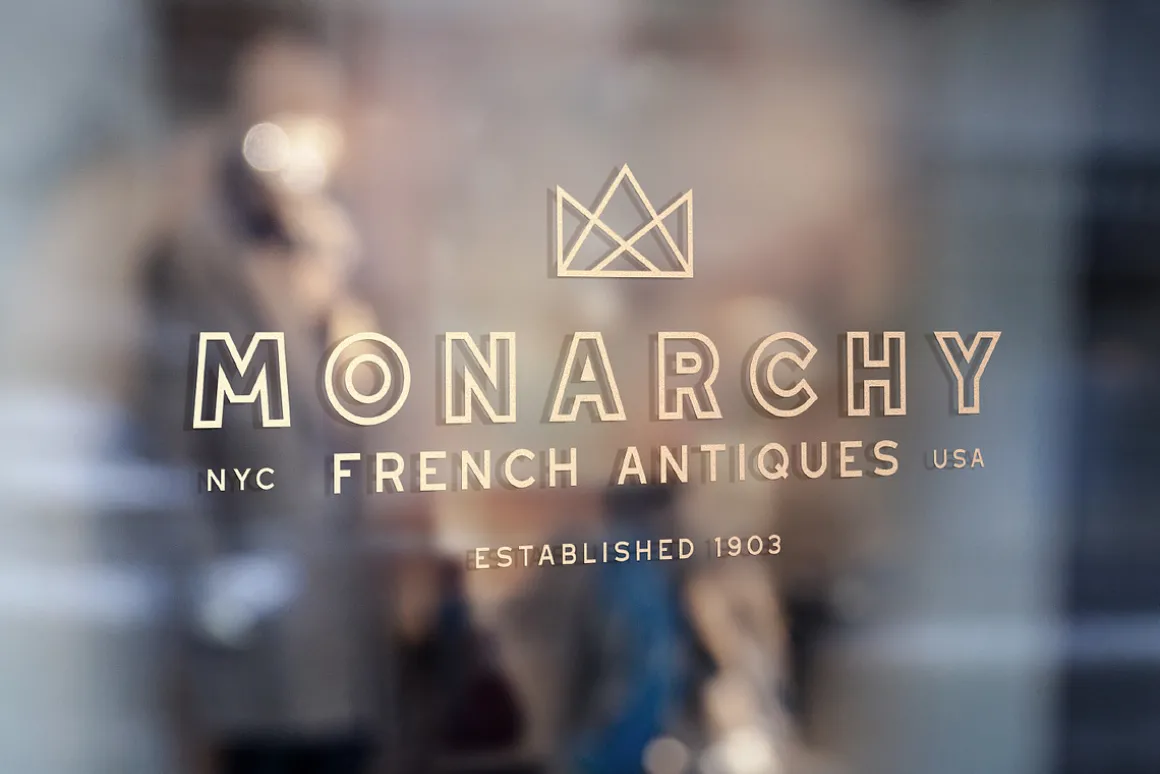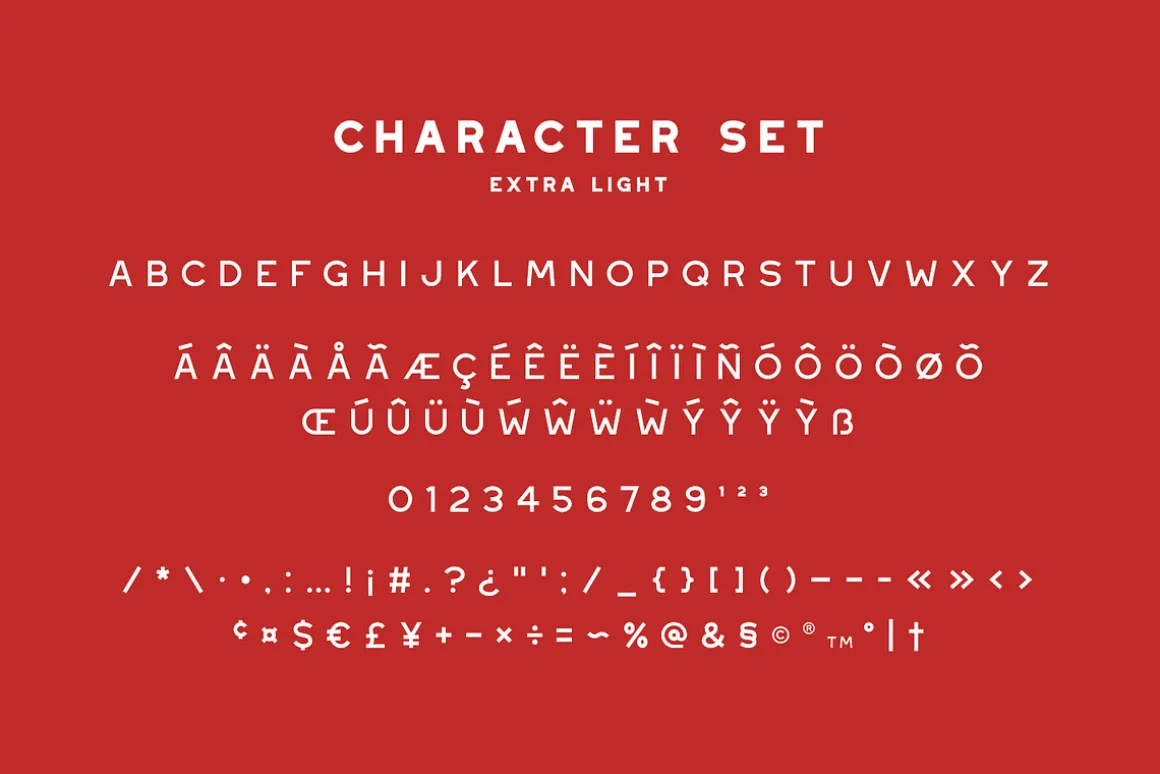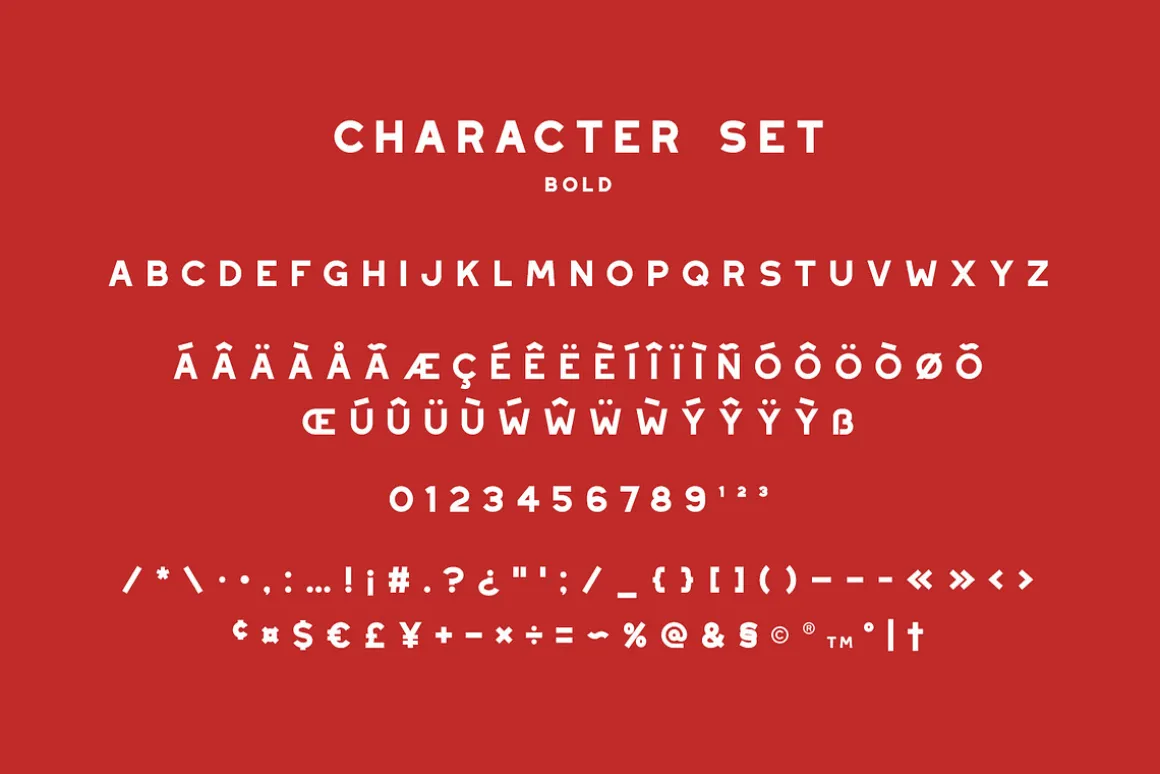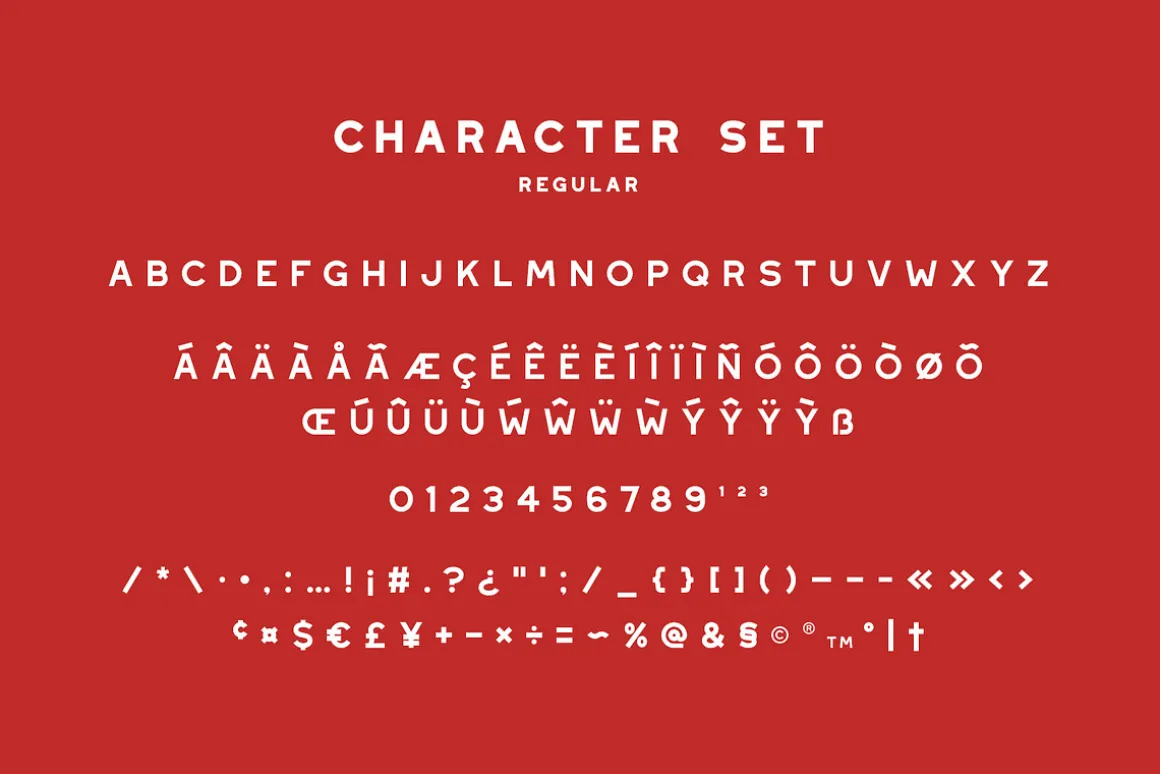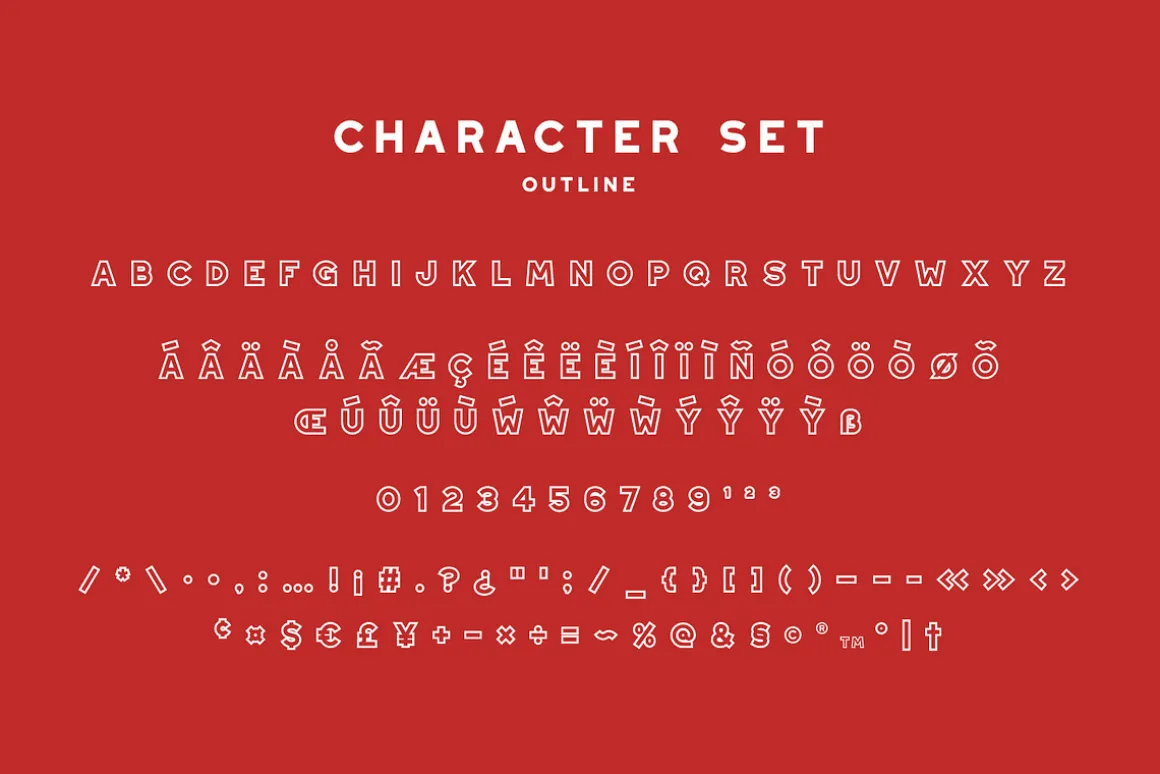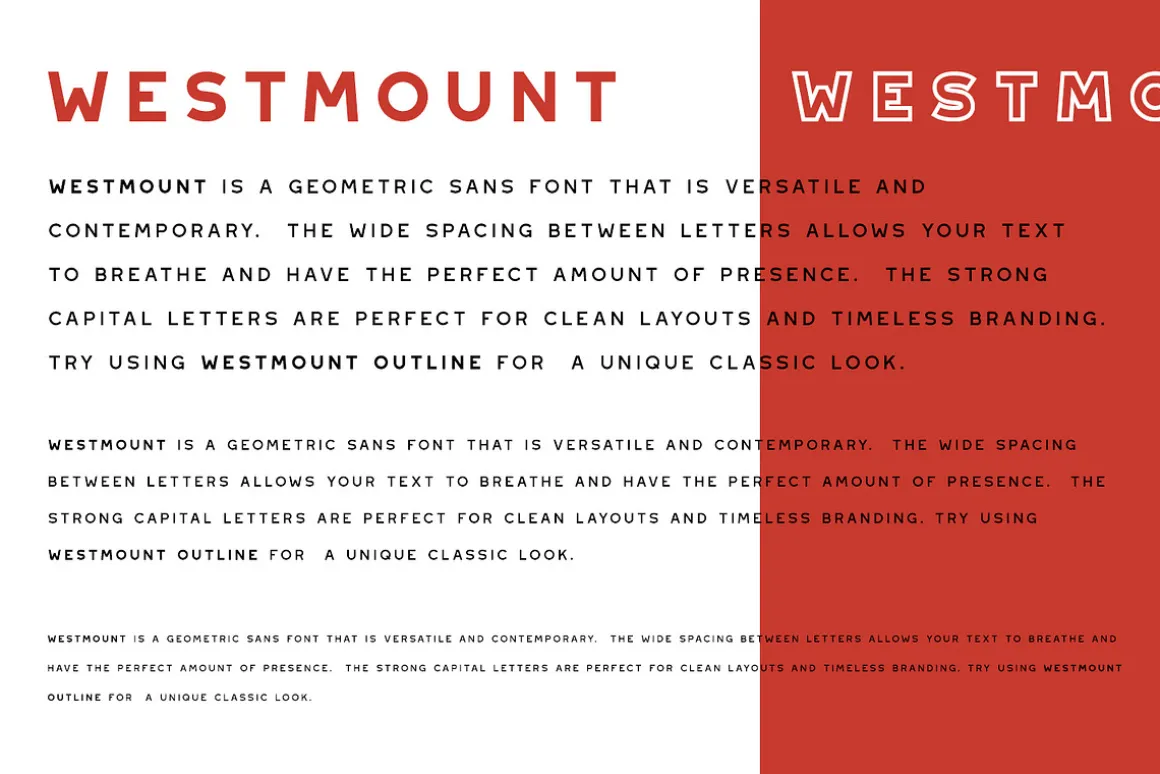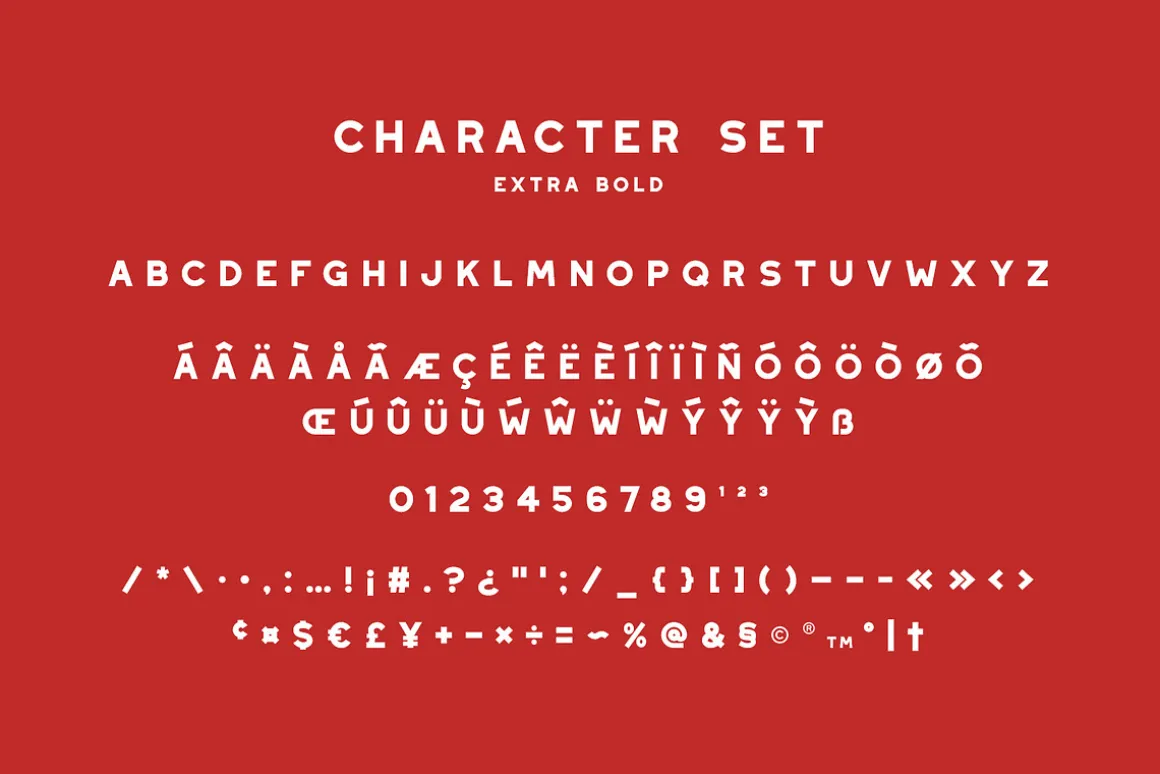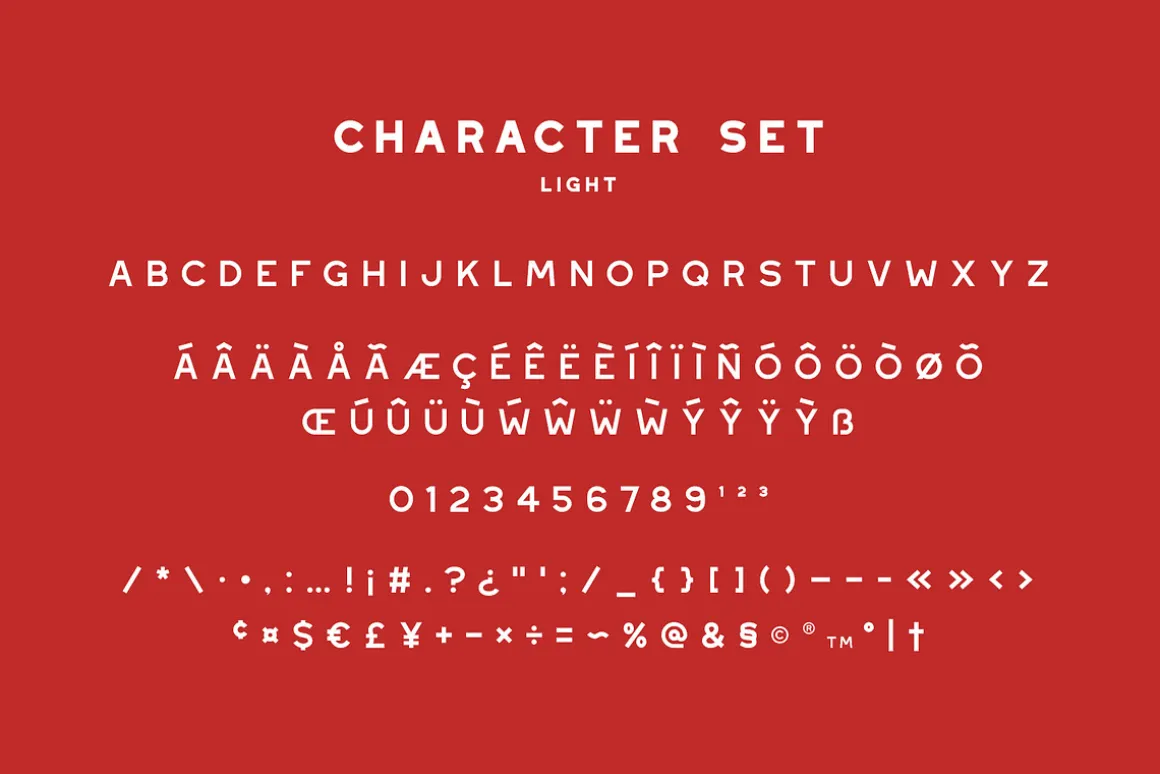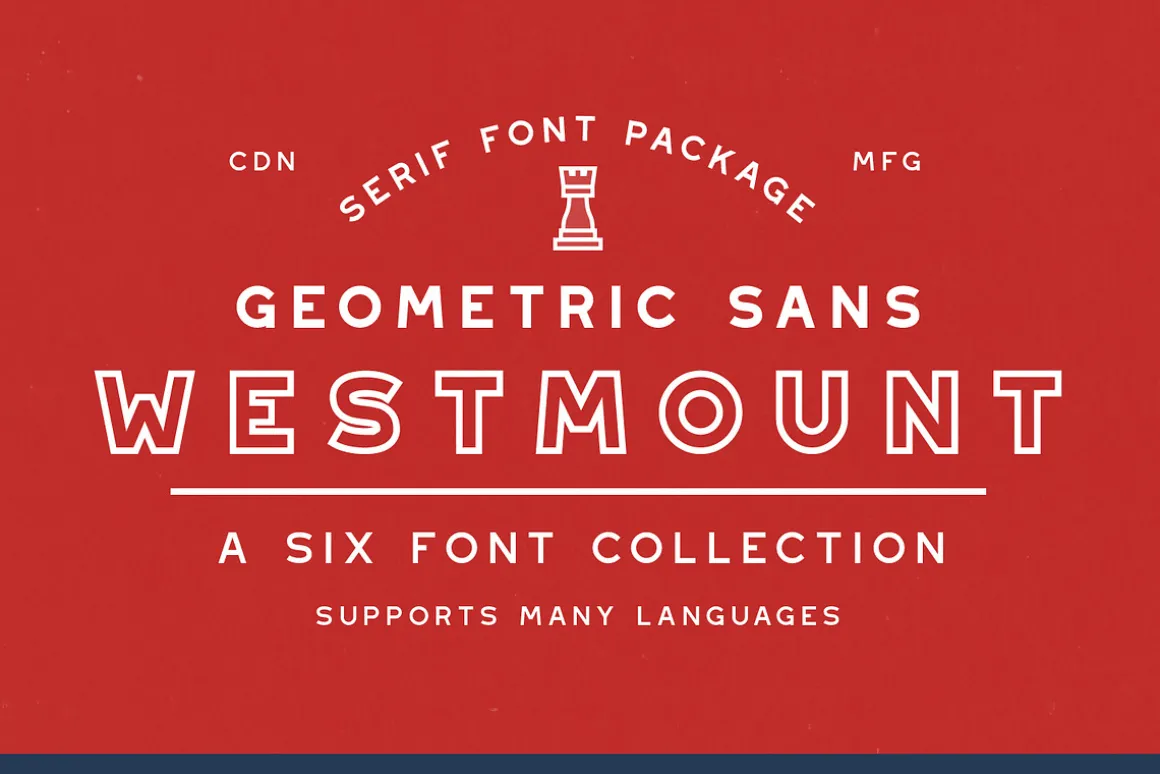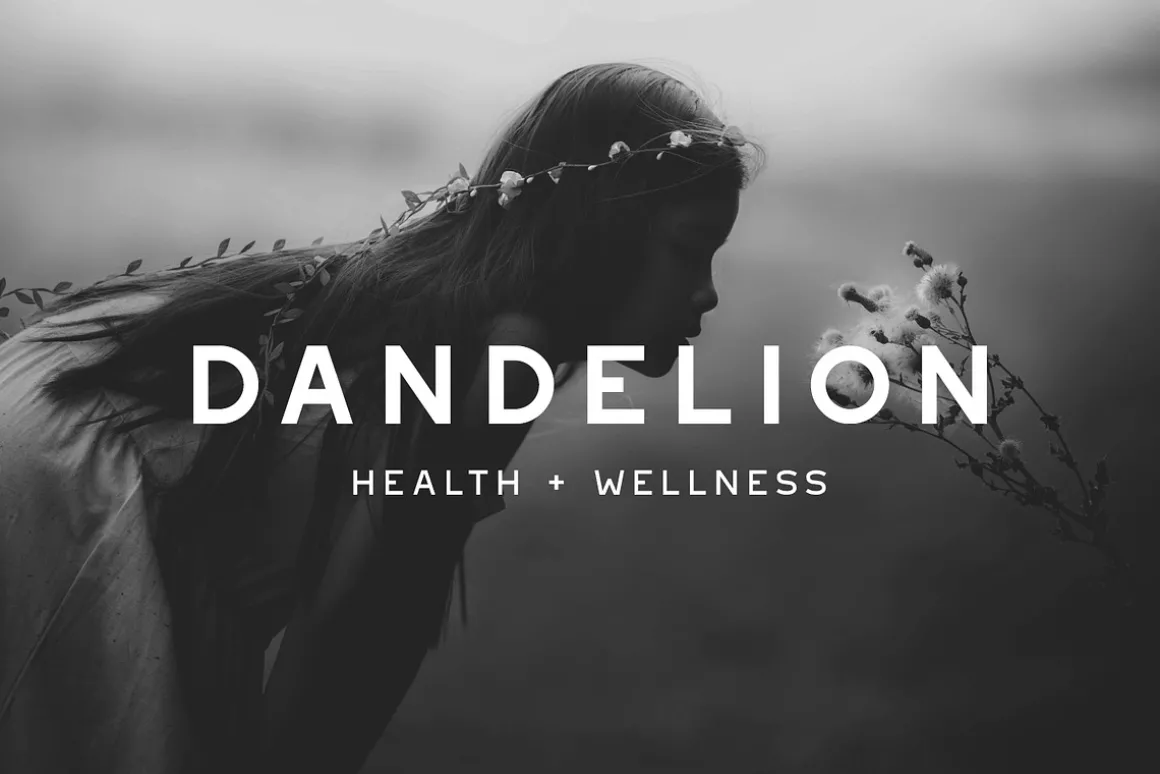
Westmount is a geometric sans font that is both versatile and contemporary.The wide spacing between letters gives your text room to breathe and have the perfect amount of presence and balance.The strong capital letters are perfect for clean layouts and timeless branding. Try using Westmount Outline for a unique classic look.Hit that buy button and start making timeless beautiful designs!
Includes 6 Font Styles:
Westmount – Extra Light
Westmount – Light
Westmount – Regular
Westmount – Bold
Westmount – Extra Bold
Westmount – Outline
Language Support – We’ve added in a great deal of extra characters to support many different languages. Each font contains over 200 glyphs!